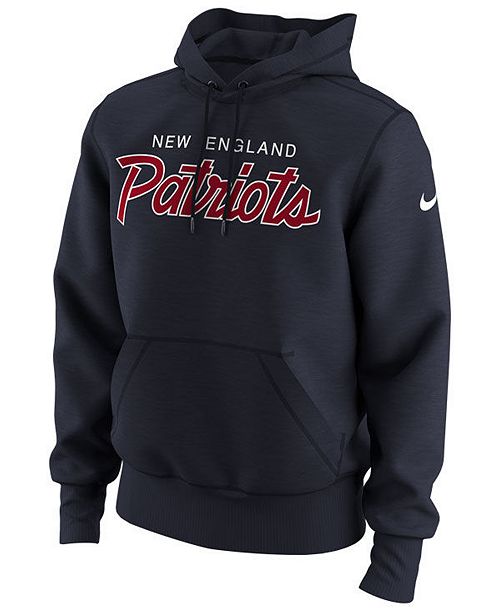
Patriots Cursive Font
The closest font you can get for the new england patriots logo is belinda font.
The closest free font you can get is lobstertwo italic font. Cursive fonts mimic the style of human penmanship where the letters flow together. Letters may be joined or unjoined. What font does new england patriots use.